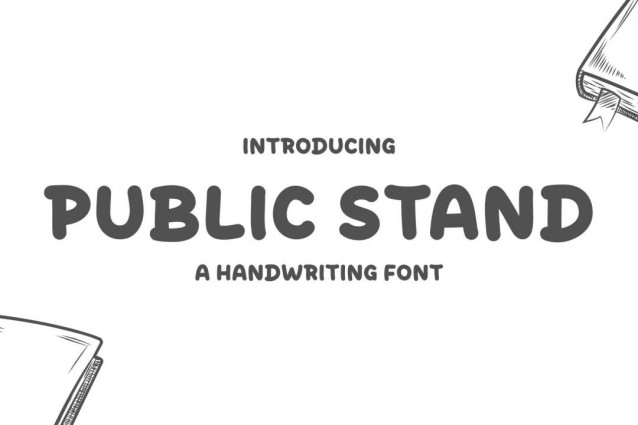
Public Stand Font
Public Stand Font is a chunky, comic, and cartoon display font. With its neat and joyful personality, this font will enhance any project you wish to create!